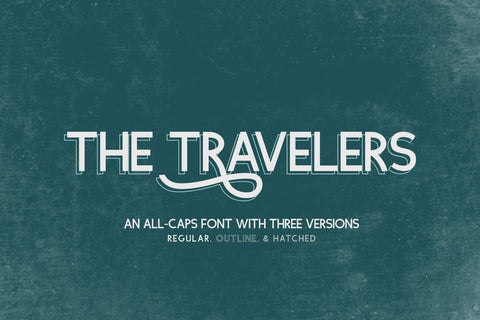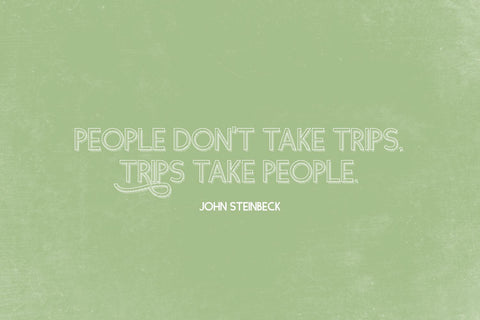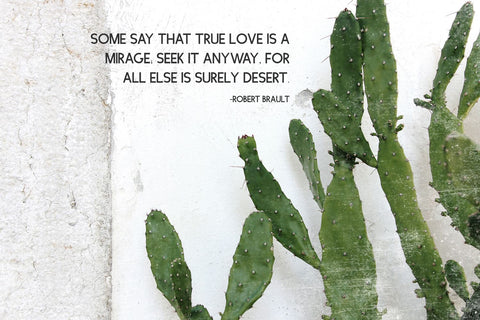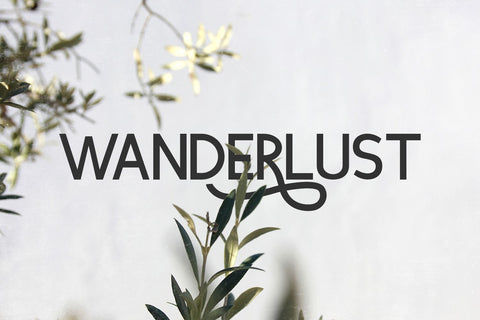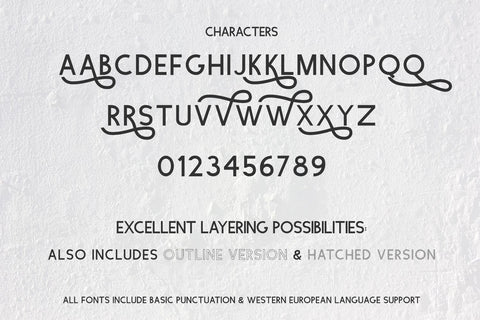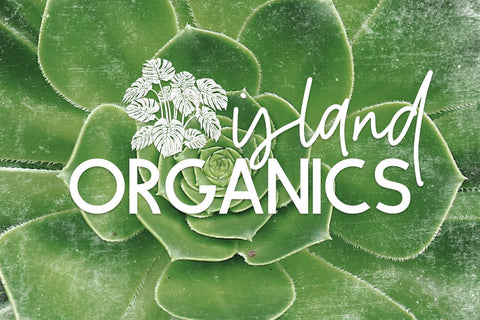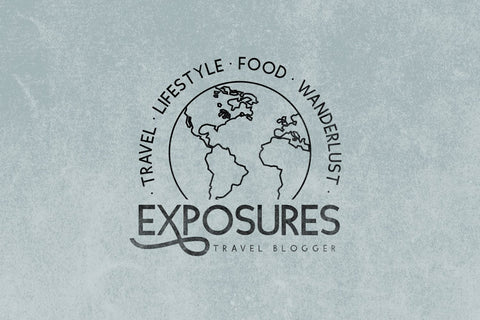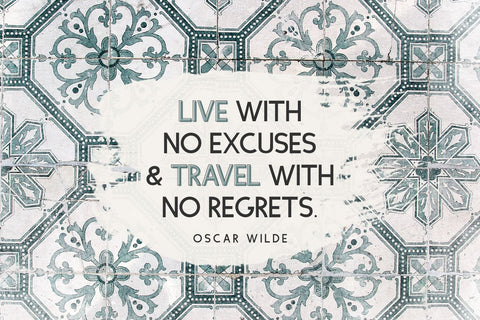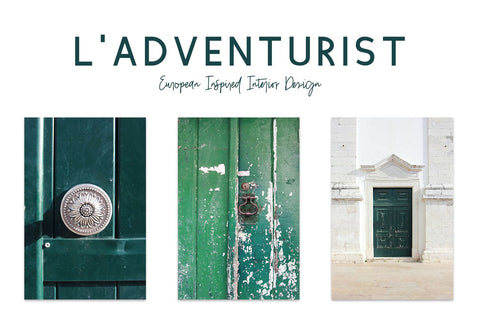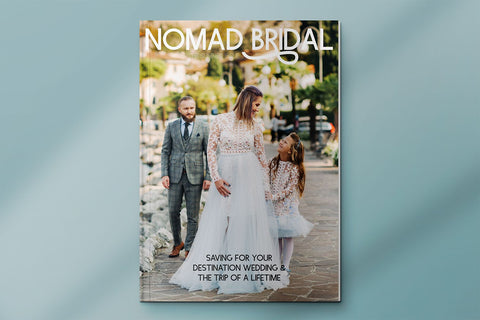
The Travelers Sans Font Trio
Say hello to The Travelers, a stylish and chic all-caps sans family that comes in three options - regular, outline, and hatched. The Travelers also includes some alternates which you can use to customize your text!
The Travelers is best for:
- logos + branding
- printed materials, both for attention grabbing headlines and easy to read blocks of content
- header elements that need handwritten touch
- quote graphics for social media like Facebook or Instagram
The Travelers includes:
- full uppercase characters for both caps & lowercase glyphs
- numbers + punctuation
- Western European Language Support
- 7 alternates - A, K, Q, R, V, W, X